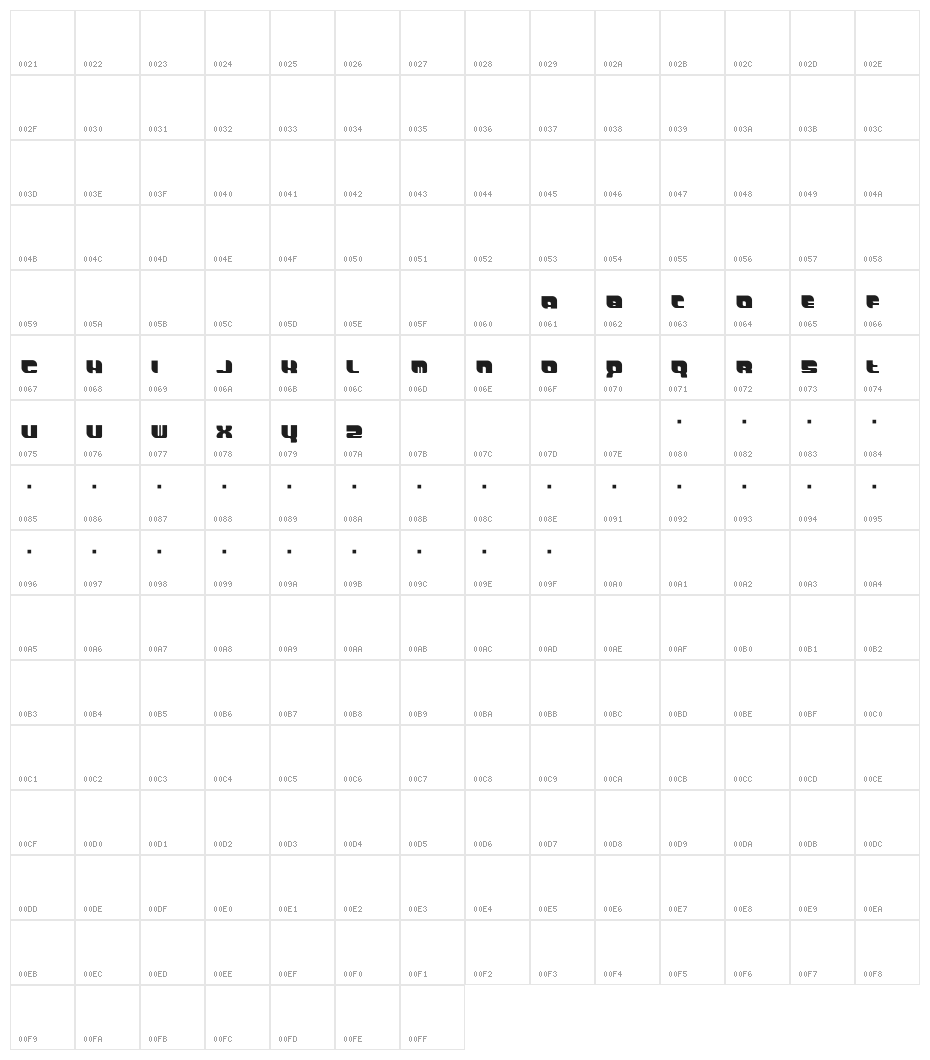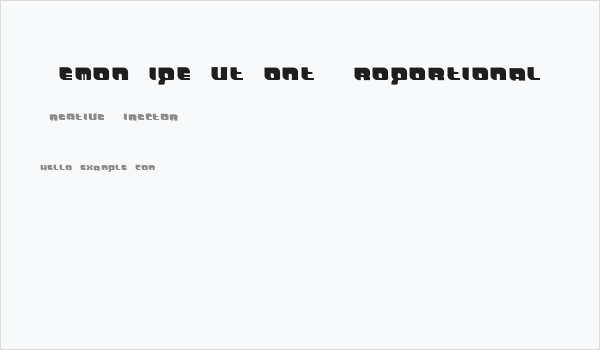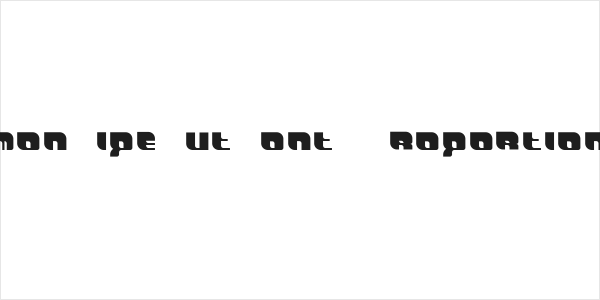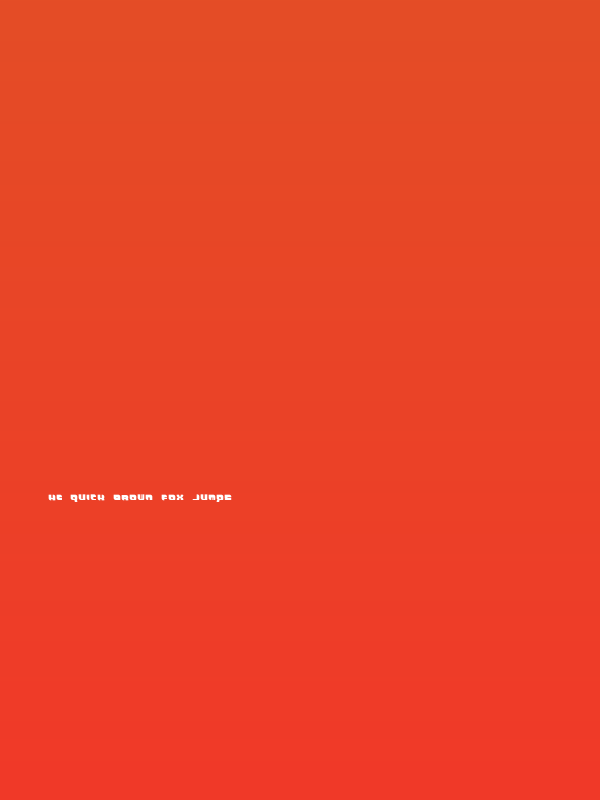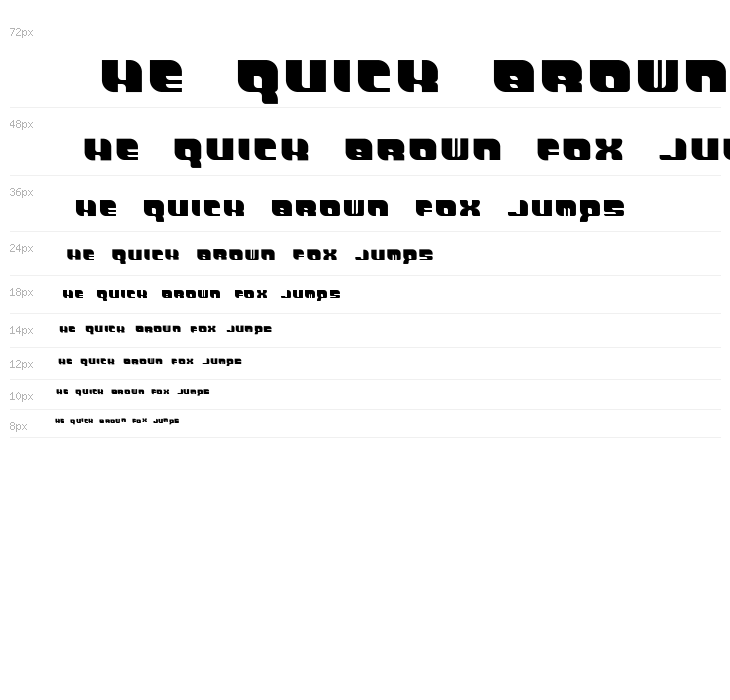
DemonWipeOutFont Proportional Font
DemonWipeOutFont Proportional Description
This font features a bold and futuristic design with a unique geometric style. The characters are constructed with thick, block-like shapes, giving them a strong and impactful appearance. The design incorporates rounded edges and sharp angles, creating a dynamic and modern look. The uppercase and lowercase letters maintain a consistent style, while the numbers and special characters complement the overall aesthetic. This font is ideal for projects that require a bold and eye-catching display, such as posters, logos, and headlines.
| Proposed Projects | Ideal for posters, logos, headlines, and any project needing a bold, modern look. |